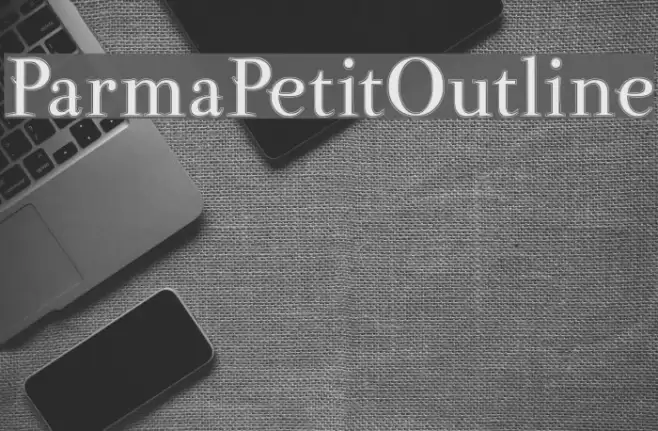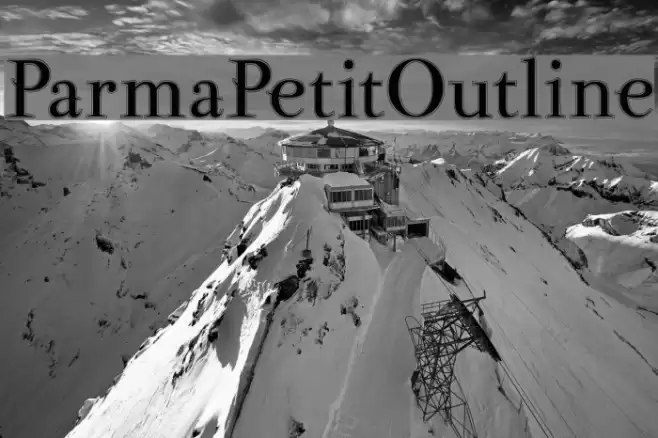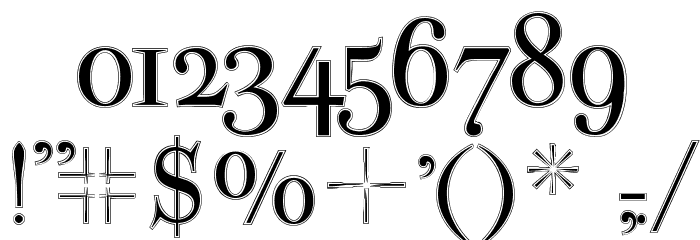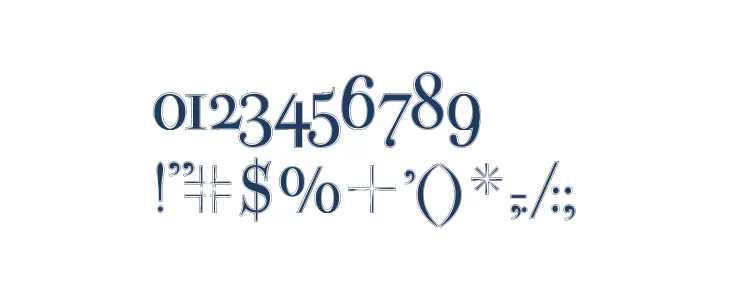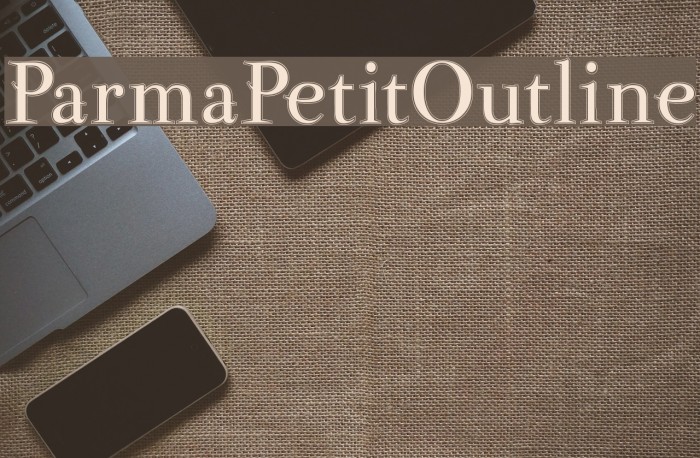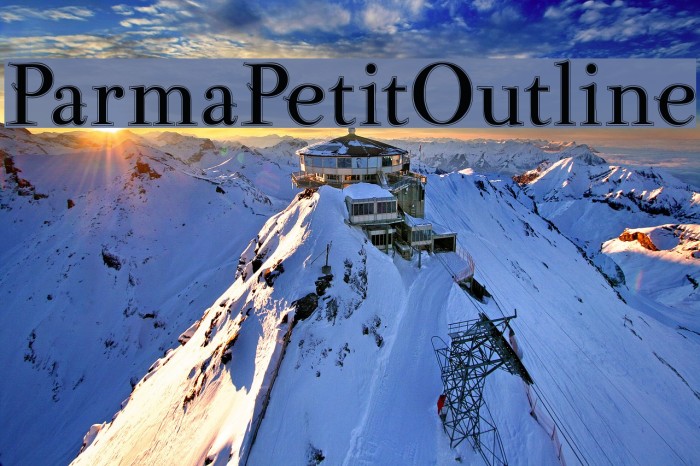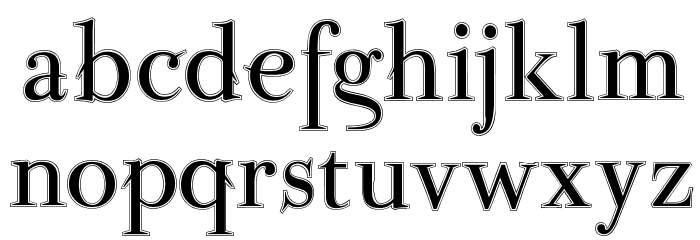
ParmaPetitOutline
This font features a classic serif style with an outline effect, giving it a distinctive and elegant appearance. The uppercase letters are bold and commanding, while the lowercase letters maintain a graceful flow. The numerals are well-proportioned, and the special characters are designed with a consistent aesthetic that complements the overall style. The outline adds a layer of sophistication, making it suitable for projects that require a touch of refinement. The font's structure is balanced, with a medium contrast in stroke thickness, ensuring readability while maintaining its decorative appeal.
A classic serif font with an elegant outline effect, offering a refined and sophisticated look from Serif fonts.
- Proposed Projects: Ideal for wedding invitations, luxury branding, editorial design, and high-end product packaging.
- Overall Style: Classic